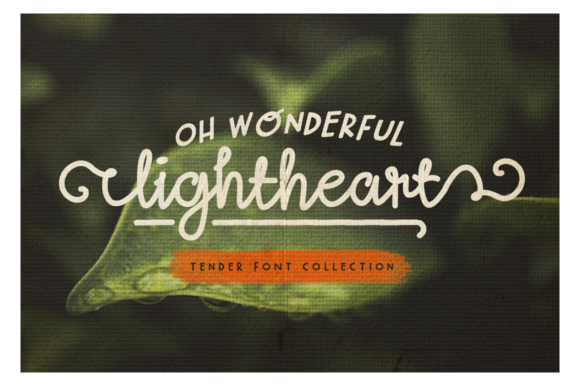
Unlock the enchantment of handwritten elegance with Oh Wonderful Lightheart, a captivating script font that will infuse your designs with a touch of magic. Meticulously crafted by the prodigies at thebrandedquotes, this font exudes an effortless charm that will enchant your audience from the very first glance.
Step into a world of boundless creativity where every letter dances across the page with a grace that will leave you spellbound. Oh Wonderful Lightheart's enchanting swashes and delicate flourishes will add a touch of whimsy to your wedding invitations, branding materials, and social media posts.
Indulge in the romance of flowing curves that mimic the fluidity of a gentle breeze. Allow the subtle variations in thickness to create depth and intrigue, capturing the essence of handwritten artistry in digital form.
With Oh Wonderful Lightheart, you'll discover a font that is as versatile as it is beautiful. Whether you're designing elegant logos, heartfelt love letters, or captivating social media posts, this script font will add a touch of magic to every project.
Unleash your creativity and let the enchanting allure of Oh Wonderful Lightheart captivate your audience. Dive into a world of handwritten elegance and experience the joy of creating designs that will leave a lasting impression.